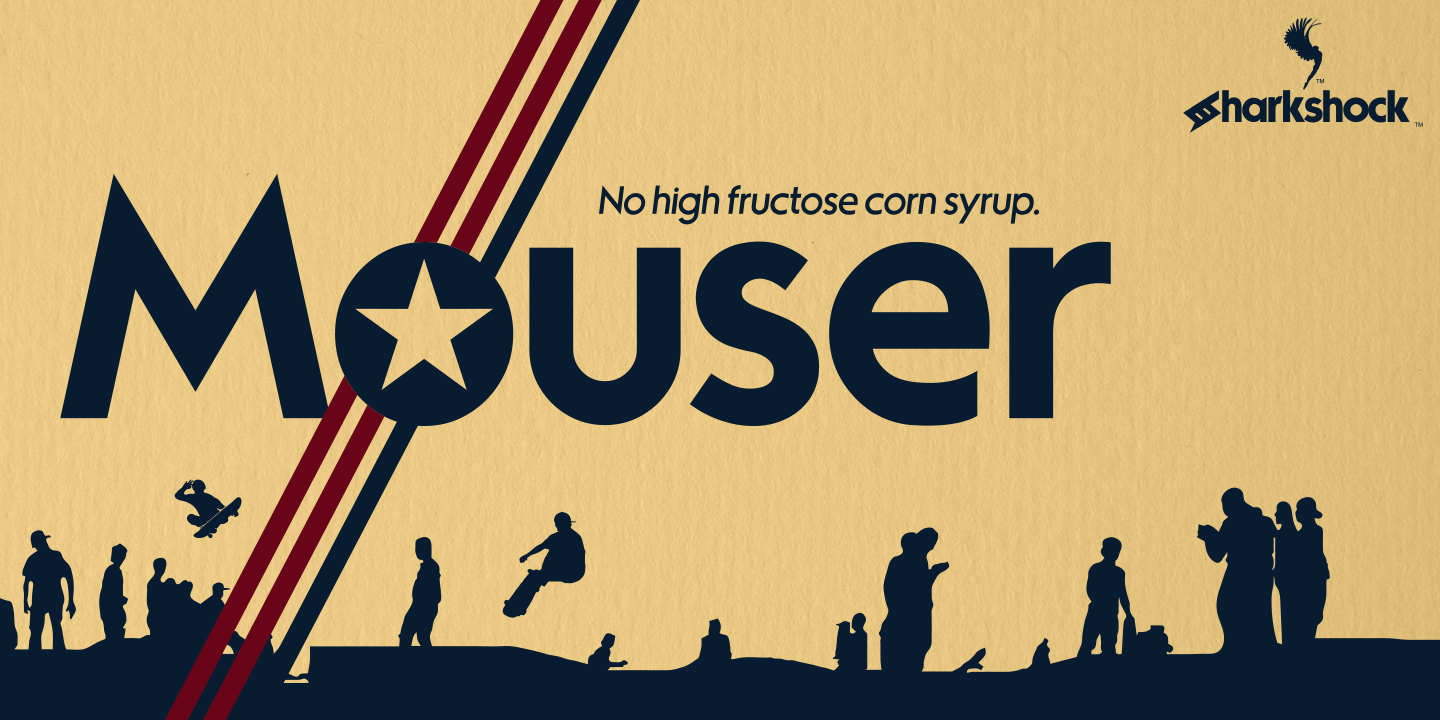
Preview and download Mouser Font. Created by Sharkshock in Basic Sans serif styles with Demo license.
OTF/TTF: Mouser (Regular, Italic, Bold, Bold Italic, Light, Light Italic) Sharkshock 2021. All rights reserved Designed by Dennis Ludlow 11/10/2021 dennis@sharkshock.net Mouser has been an ongoing project that originated as a geometric sans of the same name before morphing into a similar, but entirely different family called TypoGraphica. It retains much of its earlier character such as limited contrast, high legibility, and tight spacing. Major changes were made for a simplistic, more cohesive look. This was done to maximize its usefulness for body text while keeping characteristics used for display purposes. Slices to top strokes are much more subtle with styling dialed down to a minimum. This family comes in 6 different versions to meet a variety of needs. Mouser is equipped with Basic and Extended Latin/diacritics, Cyrillic, kerning, ligatures, and fractions. The demo contains basic Latin and limited punctuation. Try it for website text, applications, or headlines. The full versions can be purchased for $35 via PayPal or by acquiring a commercial license. Do note that this $35 is for personal use only. Email us or visit www.sharkshock.net/license for more information on licensing. Unauthorized usage of our intellectual property is strictly prohibited and may result in legal action. Thank you for your support! Tags: sans, publications, basic, book, app, geometric, European, Europe, low contrast, accents, European, diacritics, logo, Sharkshock, lettering, serifs, titling, |